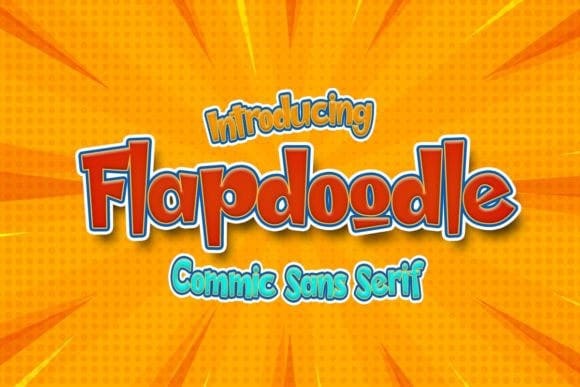
Flapdoodle Display Font
Flapdoodle Display Font, is a fun and organic handwritten font. Write down your daily thoughts and plans with this scribble font inspired by handwritten diary notes. Whether you’re planning a late-night adventure or meeting friends for brunch, this font makes you want to get out there and go!